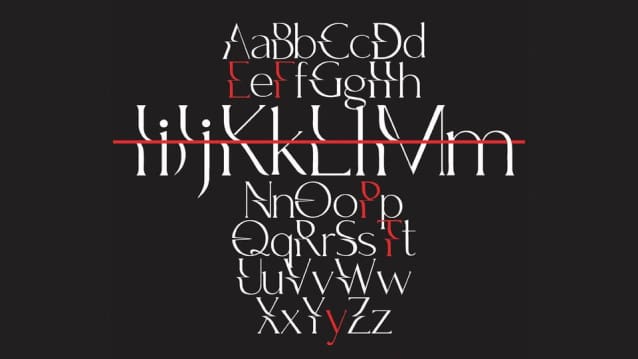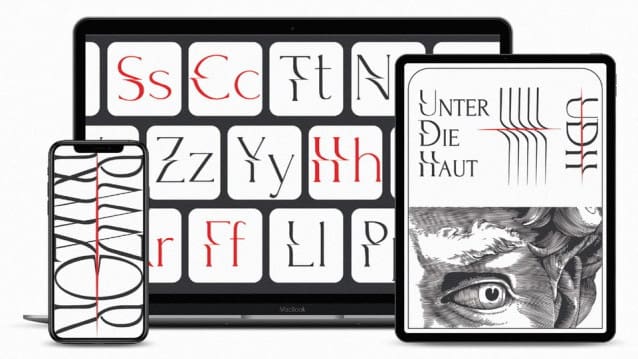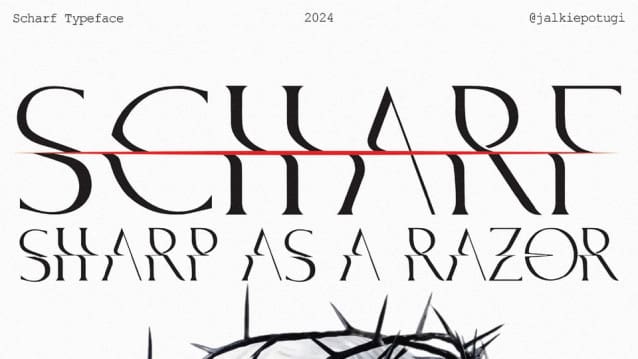
MyScharf Font
MyScharf Font is a modern serif typeface with sharp, razor-like details that bring a cutting-edge look to your designs. The font features precise and angular lines, creating a striking typographic experience that exudes contemporary sophistication.
With its bold and distinctive style, MyScharffont is perfect for projects that demand a sense of power and modernity. Whether you’re designing fashion magazines, cutting-edge branding, or sleek posters, this font adds a dynamic touch that commands attention and leaves a lasting impression.